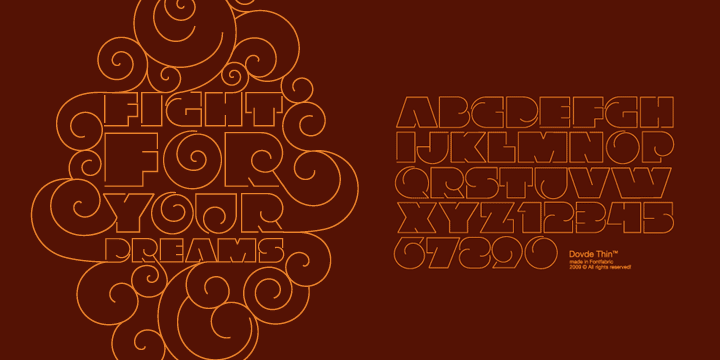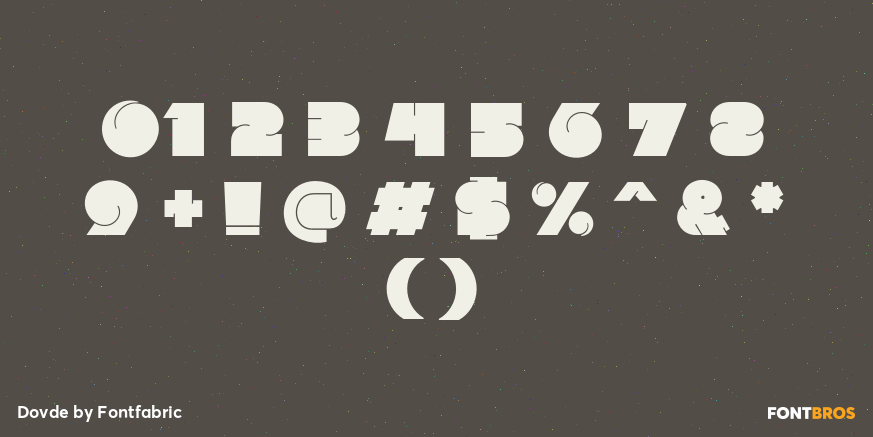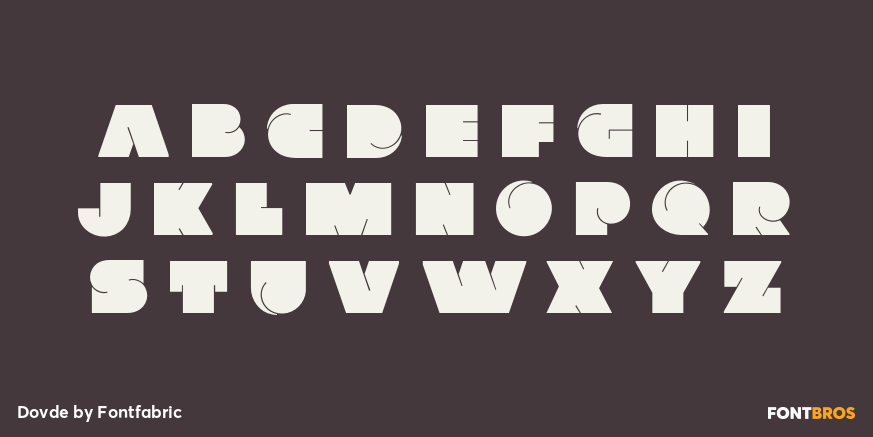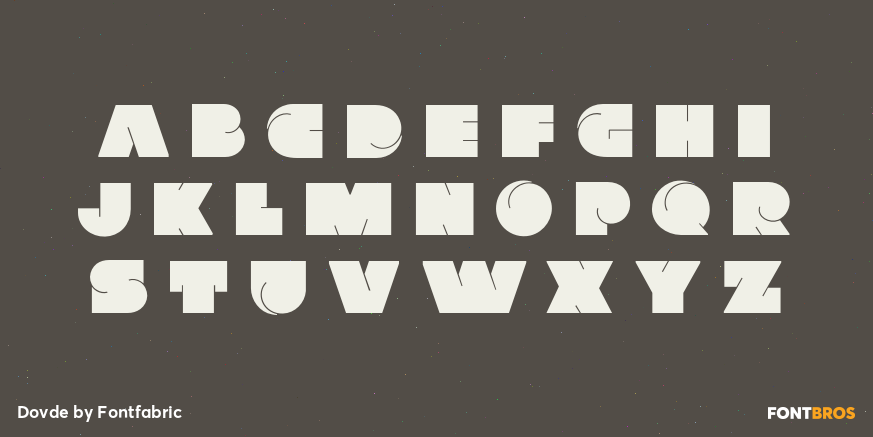
Dovde
Font Family by Fontfabric
Dovde is a custom font which is applicable for any type of graphic design - web, print, motion graphics etc and perfect for t-shirts and logos.